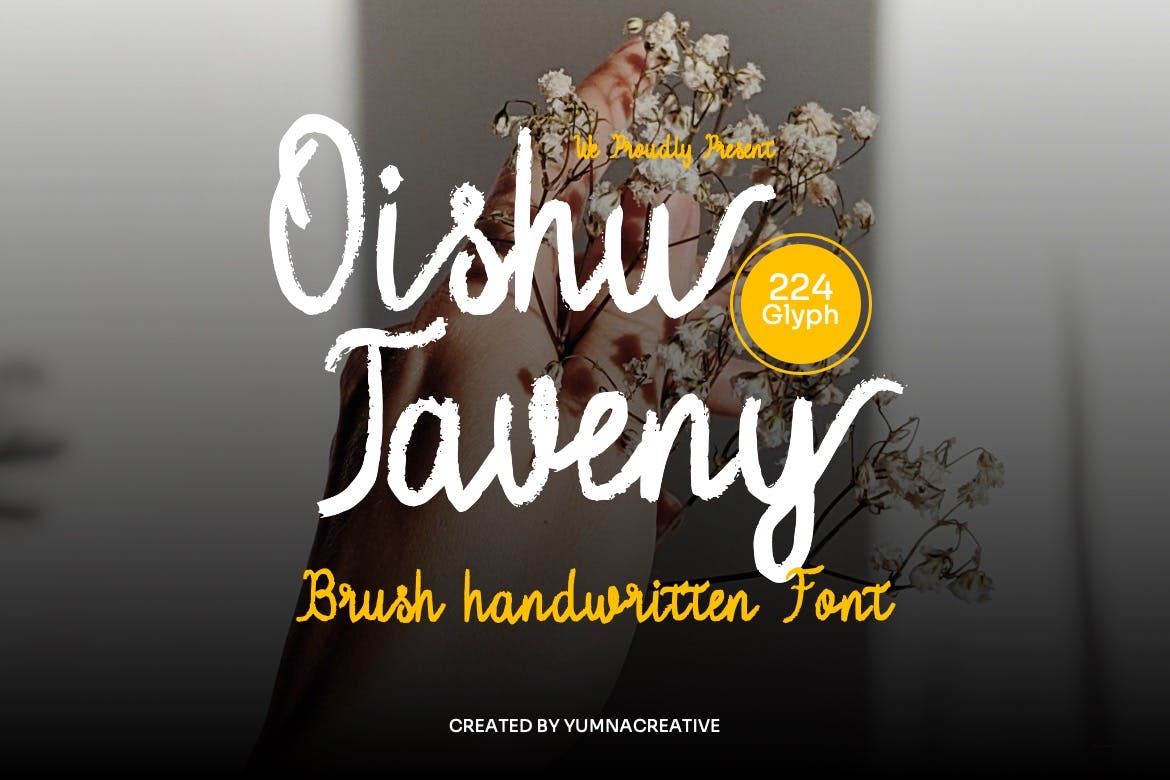
Oishu Taveny - Brush Handwritten Font
The Oishu Taveny - Brush Handwritten Font is perfect for personal branding, handmade product labels, artisan business logos, creative social media posts, handwritten quotes, craft packaging design, boutique signage, and intimate wedding invitations.
What makes Oishu Taveny - Brush Handwritten Font so exciting is its authentic representation of natural brush lettering that captures the spontaneous energy and personal touch of genuine handwriting. This captivating typeface features organic brush strokes with natural pressure variations and fluid connections that mirror the rhythm and personality of skilled hand lettering artists. Each character displays the characteristic thick-to-thin stroke transitions and organic imperfections that define authentic brush calligraphy, creating an immediate sense of warmth, personality, and human connection. The font's expressive nature brings emotional depth and personal authenticity to designs, making it perfect for brands and projects that want to convey creativity, individuality, and heartfelt communication through their typography choices.
The Oishu Taveny - Brush Handwritten Font family includes comprehensive variations that capture the full spectrum of brush lettering styles and artistic expressions. The collection typically features multiple brush weights from delicate to bold strokes, each maintaining the signature handwritten characteristics and natural flow. Many versions include alternative characters with varied brush textures, decorative swashes and flourishes, contextual ligatures that enhance the handwritten feel, and extended character sets supporting international languages for global creative applications.
The font's remarkable versatility shines across both digital and print applications, from personal websites to product packaging. Its organic brush texture maintains visual appeal at various sizes while preserving the distinctive handwritten character that makes personal branding so effective and memorable.
Creative professionals and small business owners worldwide trust this authentic brush font for projects requiring genuine personal expression and artistic sophistication. Whether developing brand identities for creative entrepreneurs, designing marketing materials for artisan businesses, or creating content for lifestyle brands, this font delivers the perfect combination of handcrafted authenticity and professional quality.